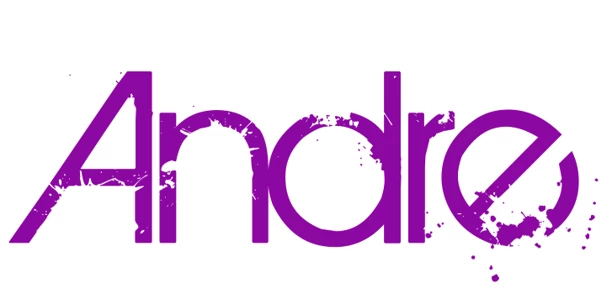
Font Modification
I'm a podcast host looking to update my show's look with a new logo. After using the same one for 5 years, I'm ready for a refresh and I've found a font that I really like. The problem is there is a splat/paint like effect embeded in the design of the font. Is there a possible way to fix or remove the effect from the font?